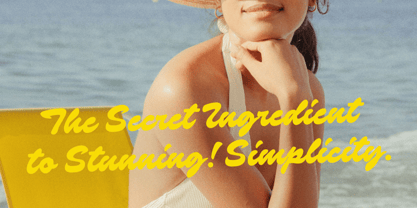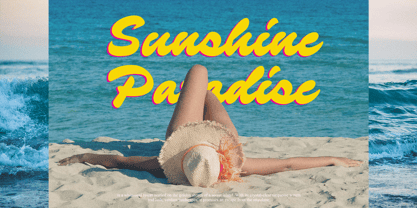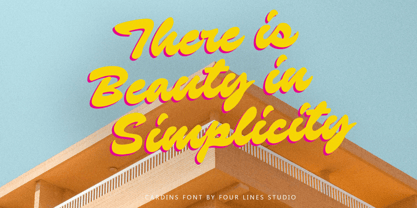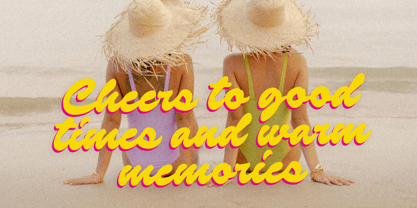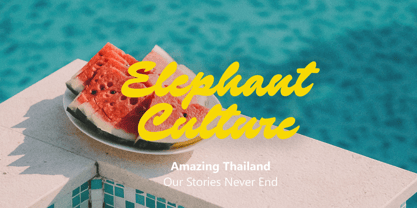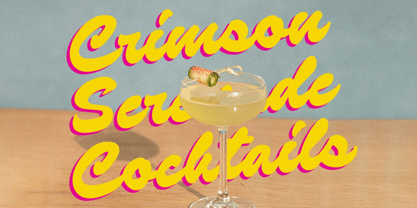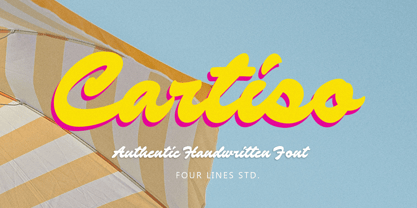
Cartiso
The Cartiso Font Family was designed by Zain Fahroni and published by Four Lines Std. Cartiso contains 1 styles.
Cartiso is a bold script font inspired by marker strokes, bringing a vibrant retro vibe to your designs. With funky character, this font is perfect for headlines that need to stand out and make a statement.